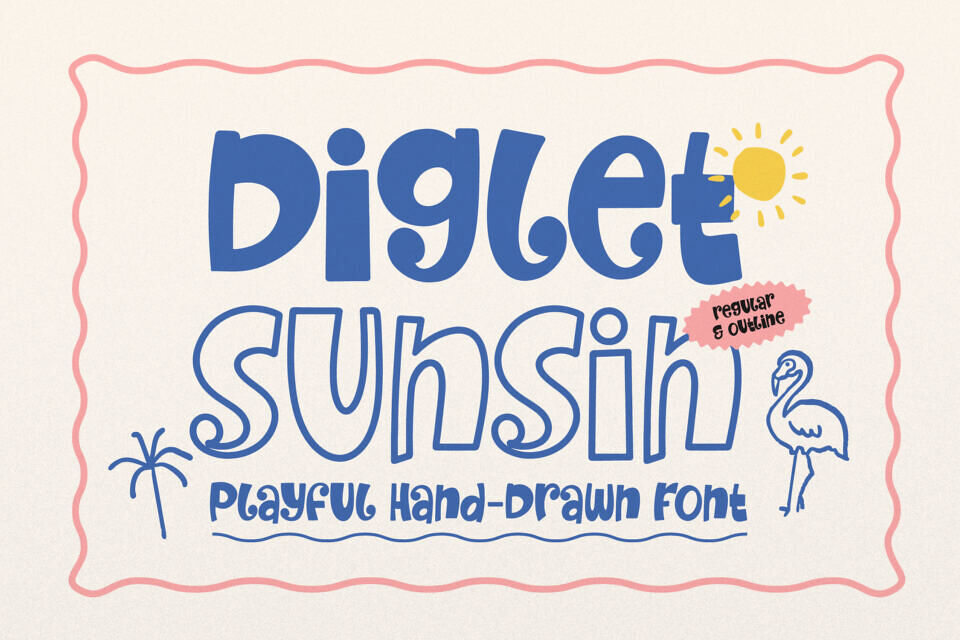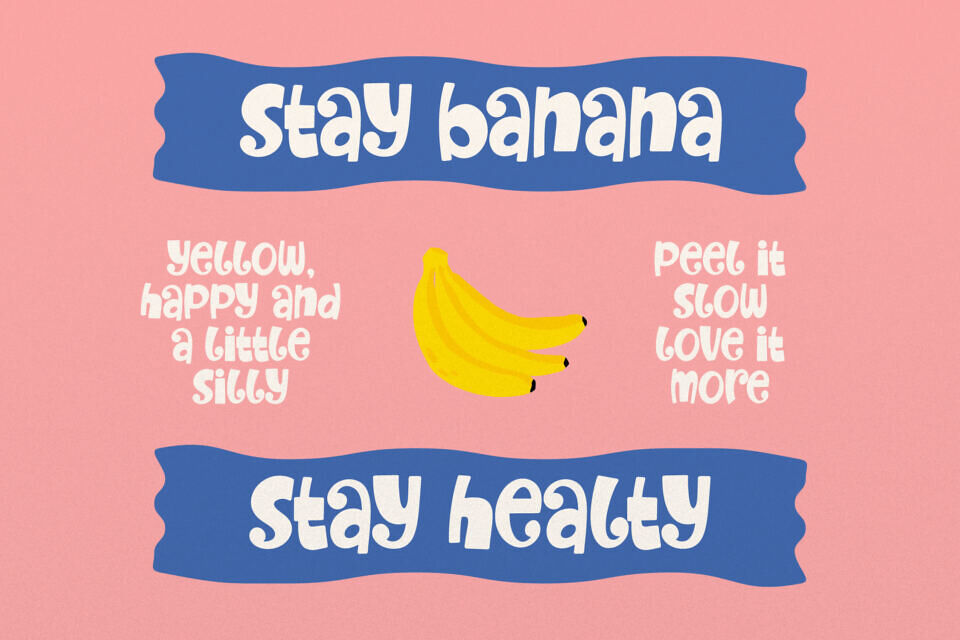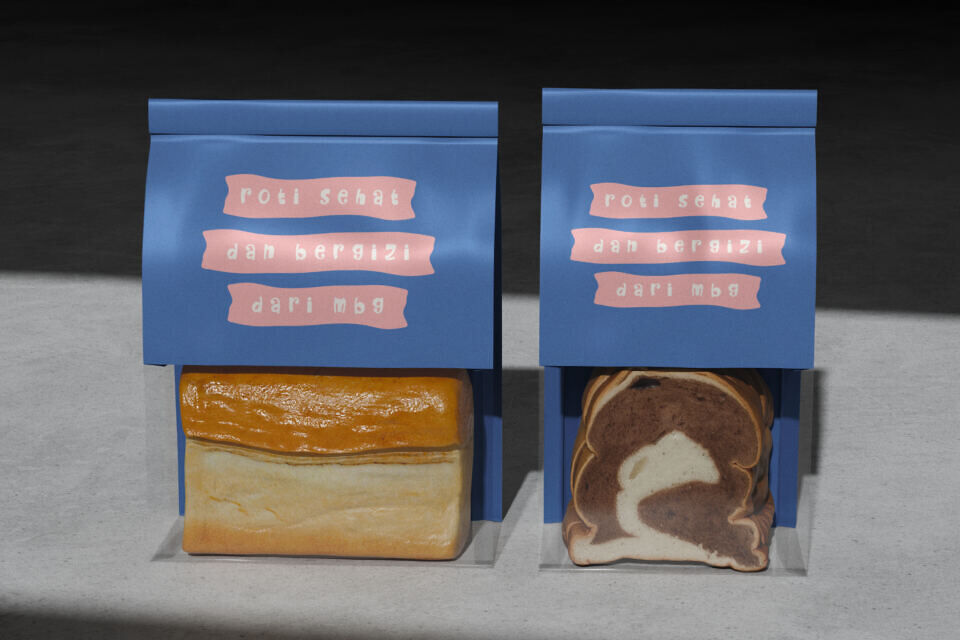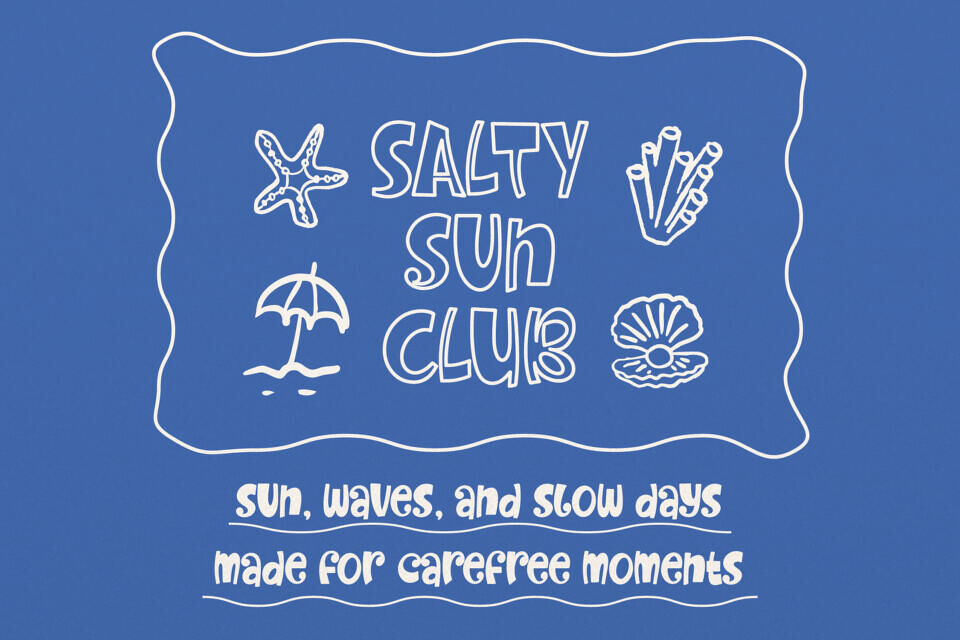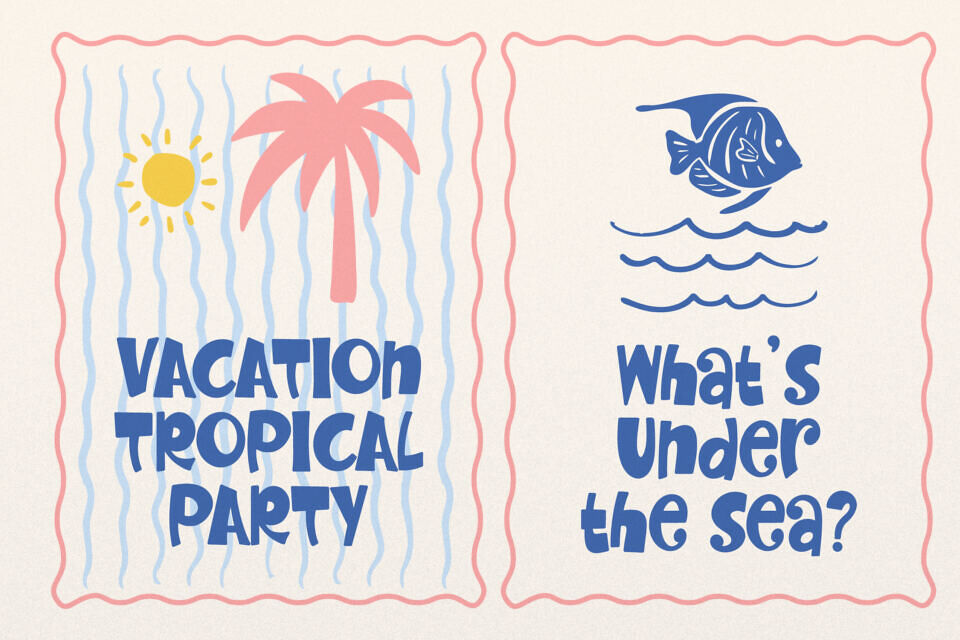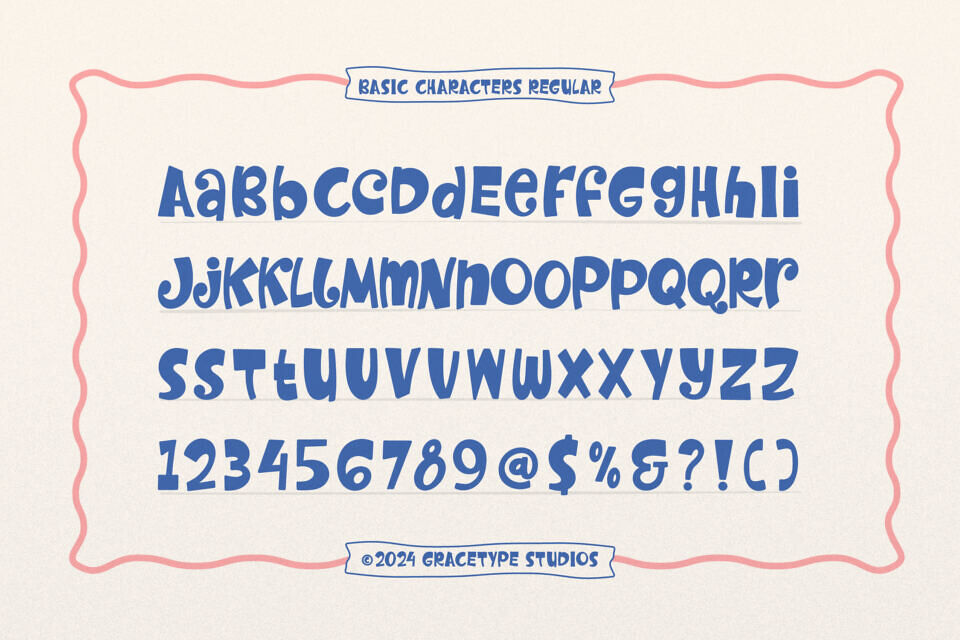
Soak up the rays with Diglet Sunsin, a vibrant, hand-drawn font designed to bring a carefree, tropical energy to your creative work. This playful typeface set includes both Regular (solid) and Outline versions, featuring bouncy, organic letterforms with a charming “retro-vacation” vibe.
With its soft curves and high-impact “summer-camp” personality, Diglet Sunsin is the premier choice for independent swimwear branding, boutique tropical cafes, children’s summer book titles, and high-energy “travel-vlogger” social media headers.